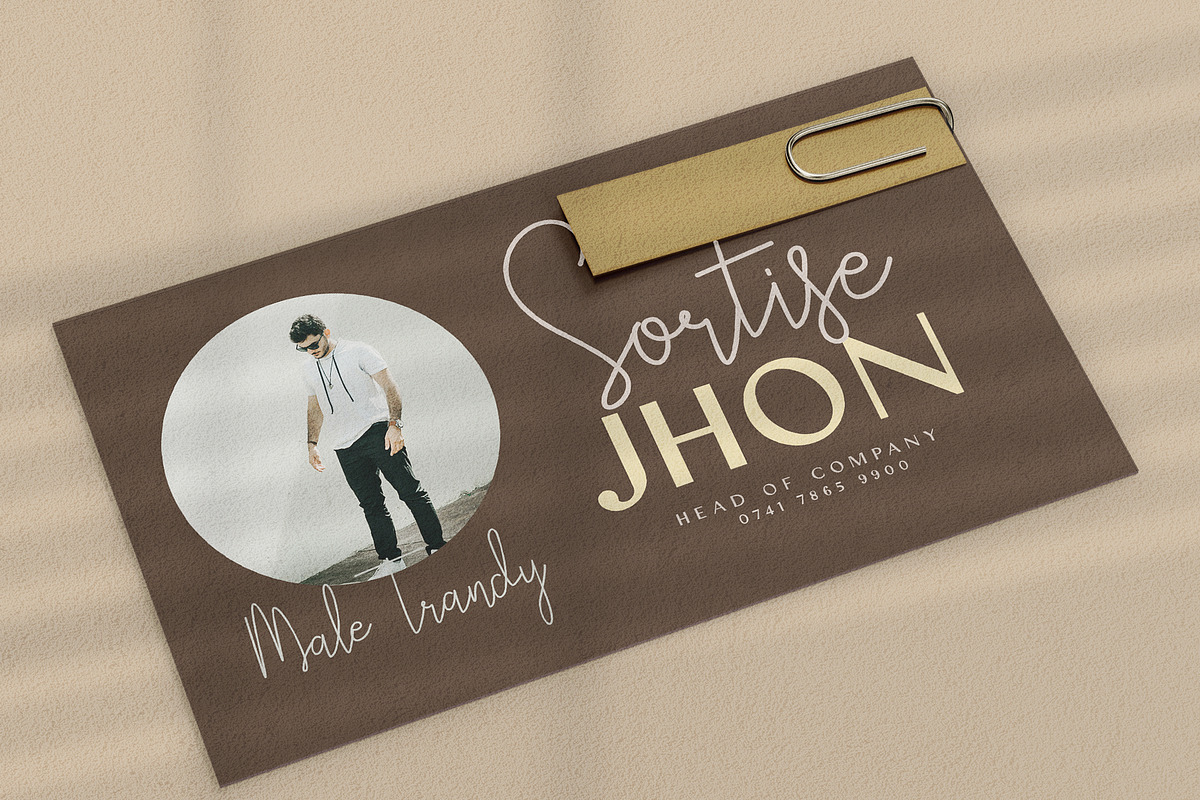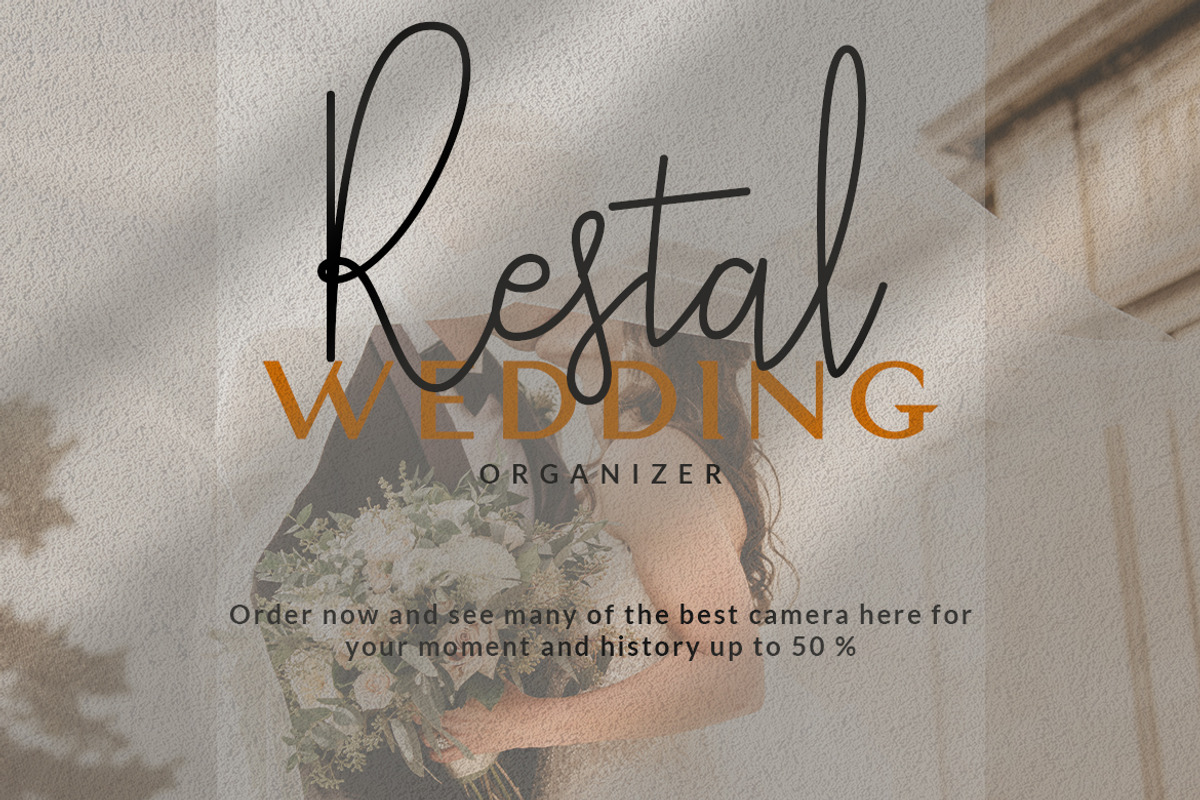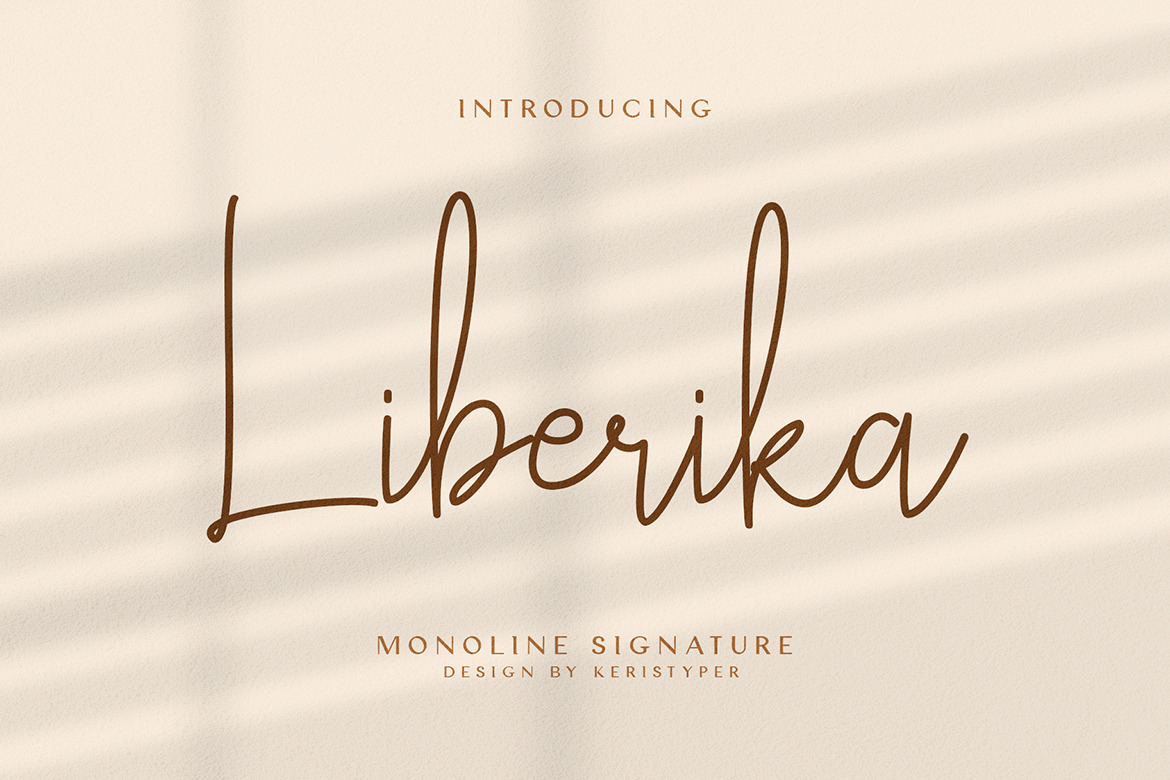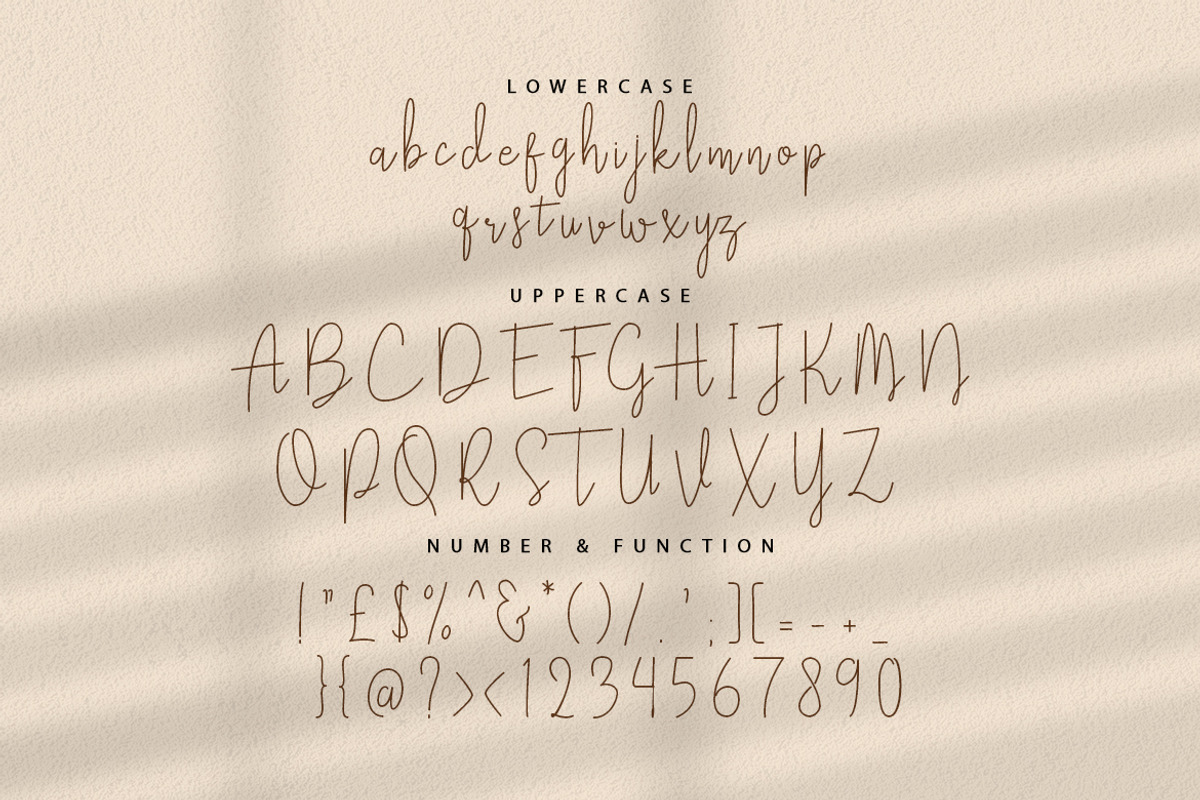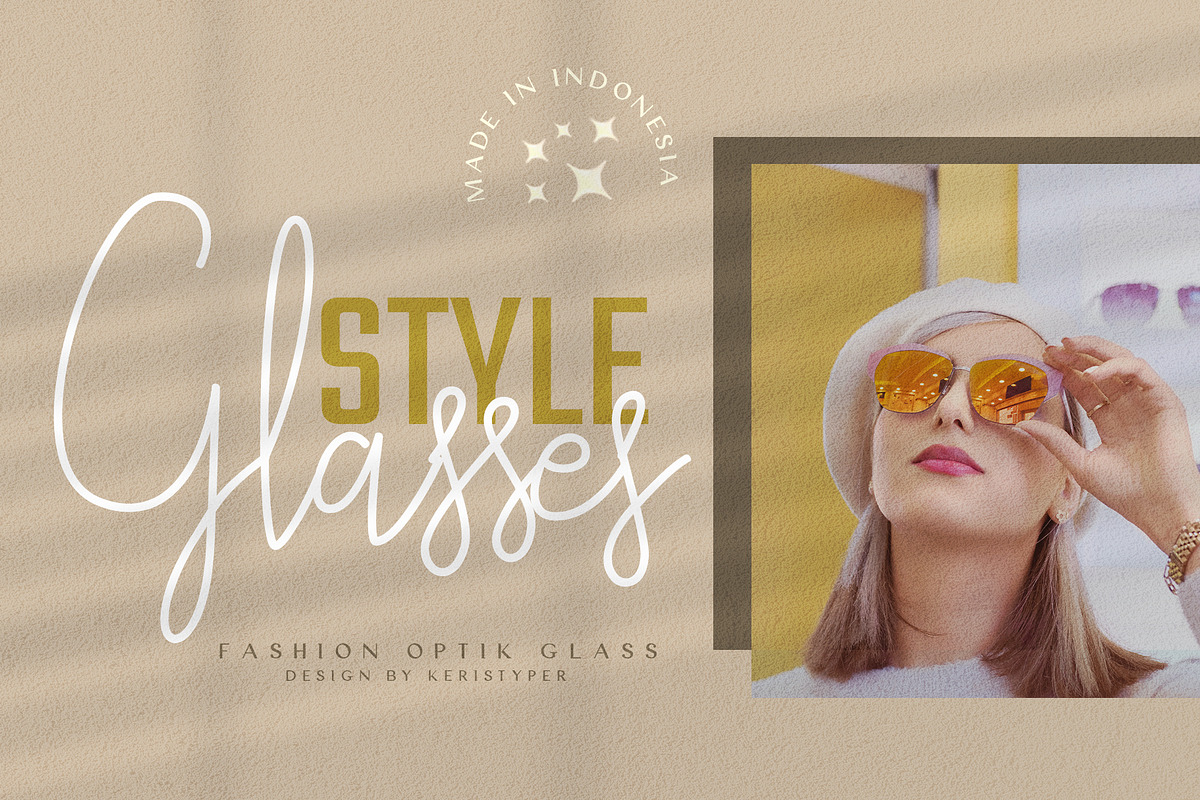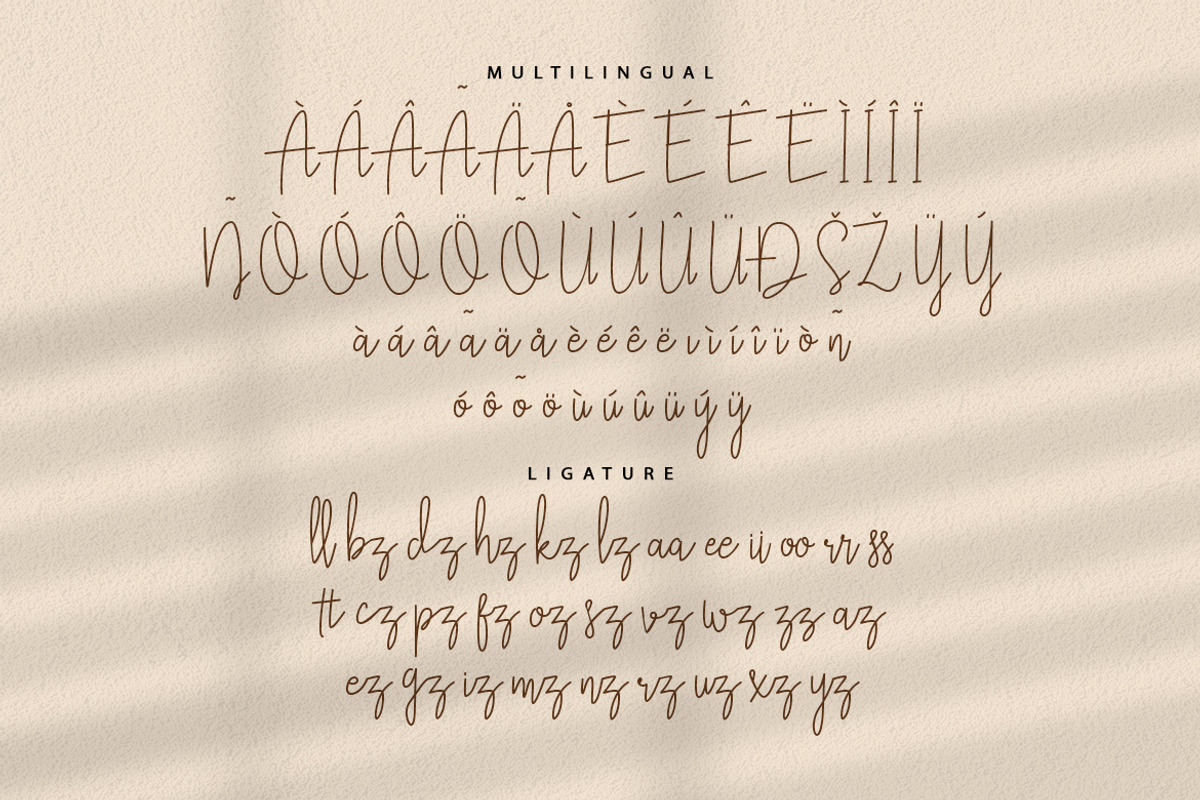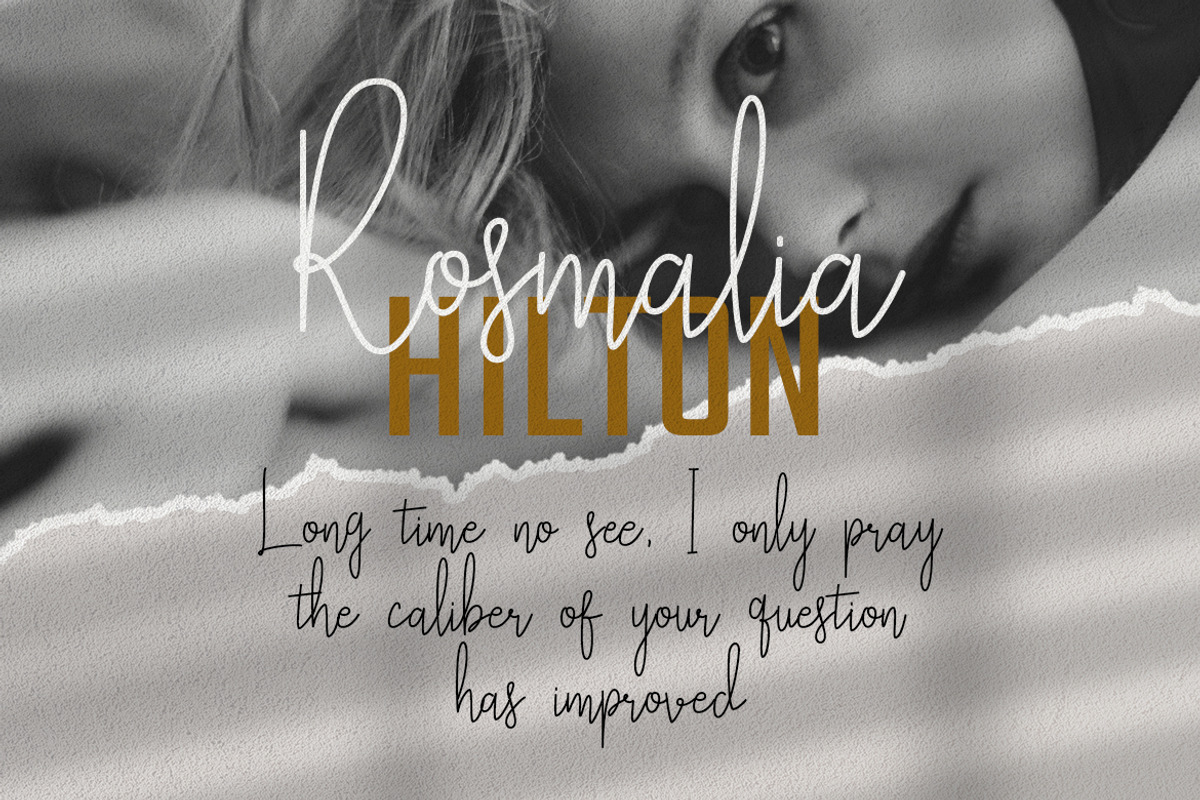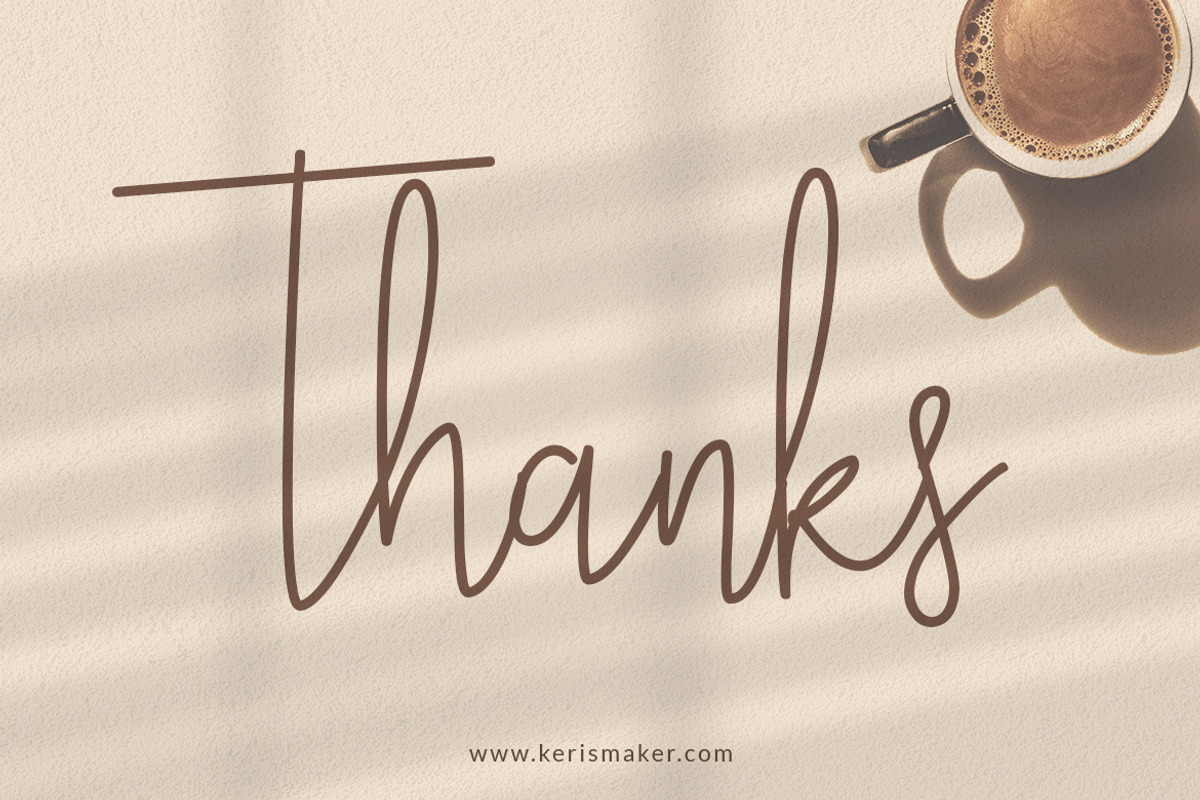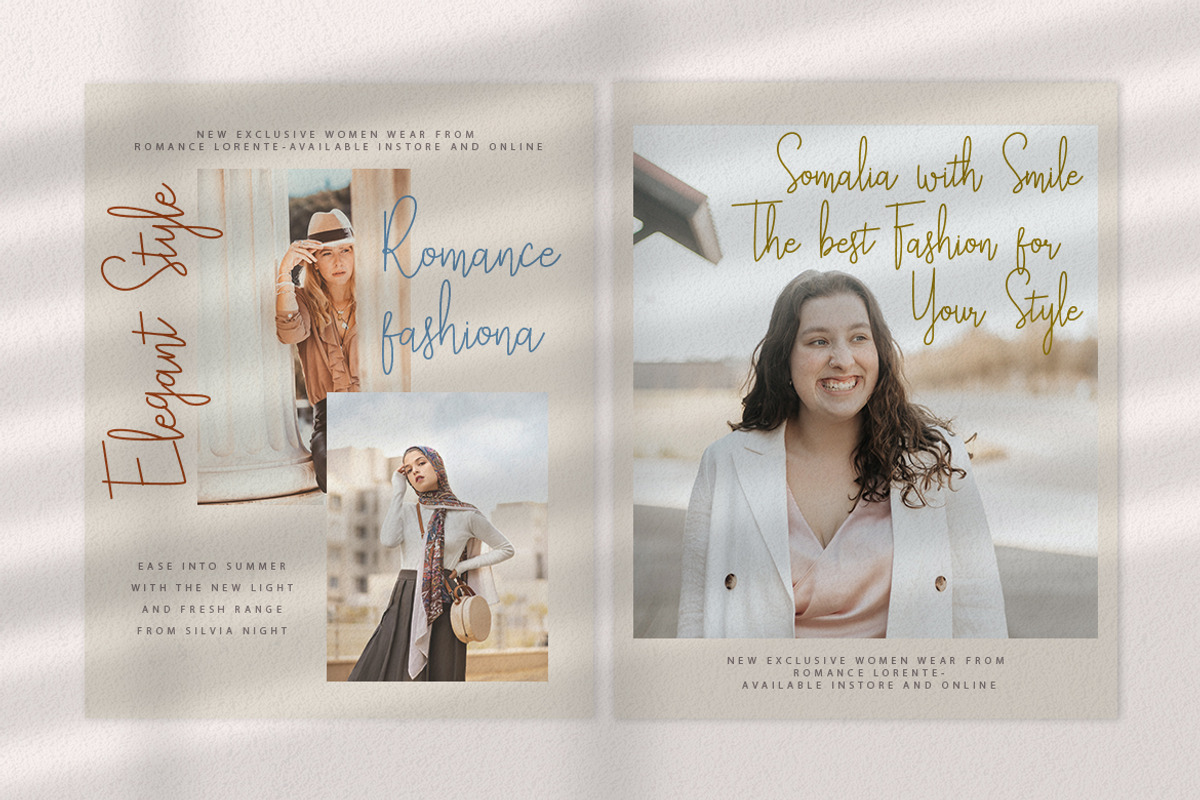
Liberika Font
Liberika is a beautiful signature-style script font with a handwritten feel. Consisting of a fashionable sophisticated signature-style script with its own unique curves and an elegant inky flow.
Liberika is perfect for branding projects, logo, wedding designs, social media posts, advertisements, product packaging, product designs, label, photography, watermark, invitation, stationery and any projects that need handwriting taste.